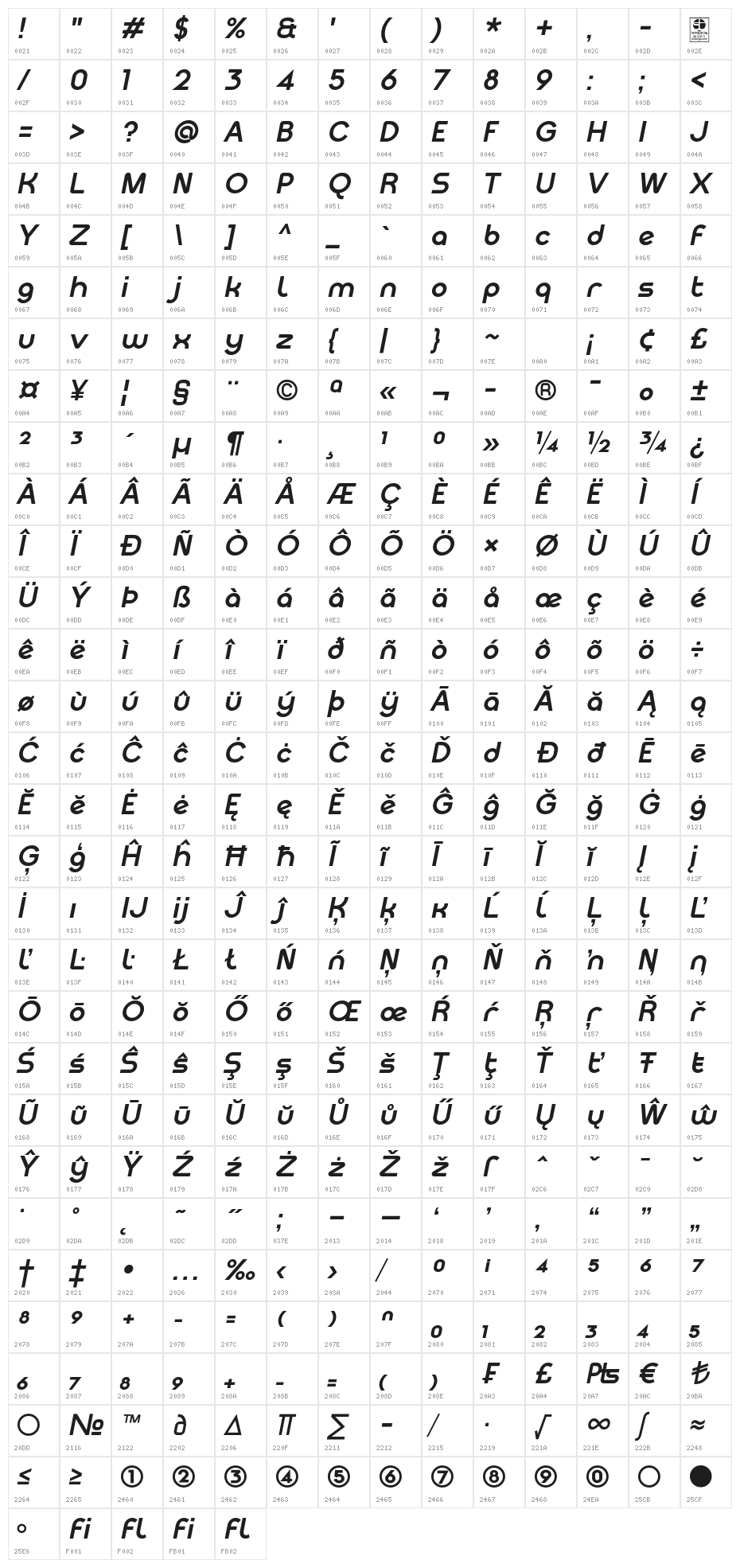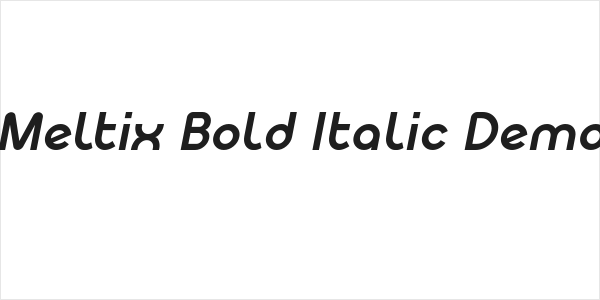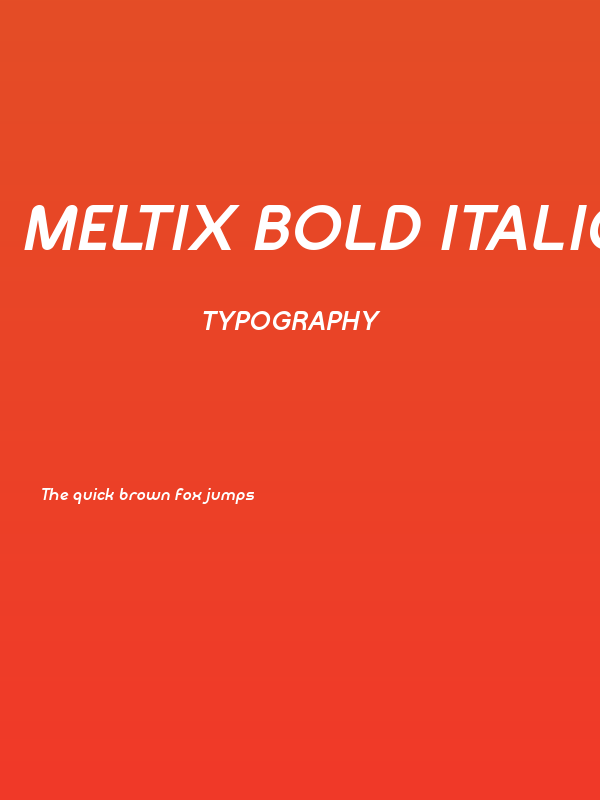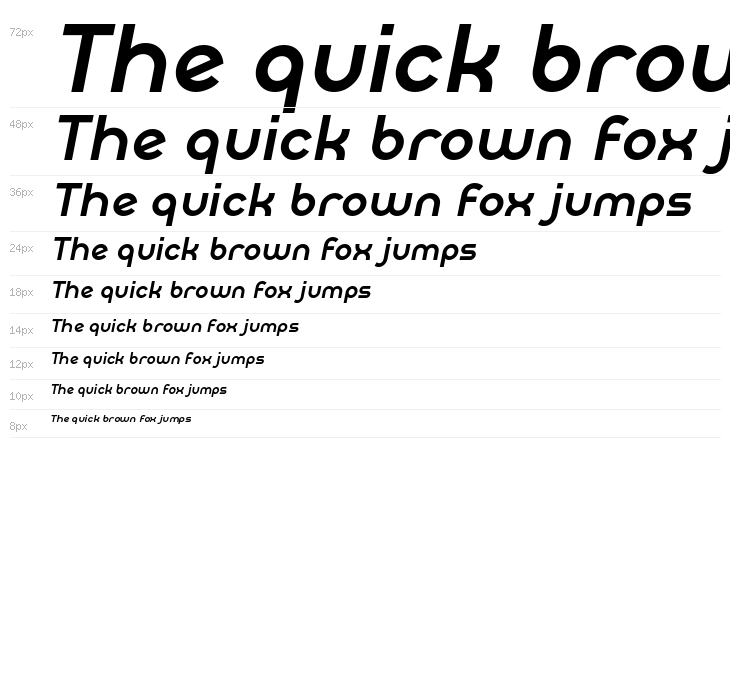
Meltix Bold Italic Demo Font
Meltix Bold Italic Demo Description
This font features a bold and italicized style, characterized by its smooth, flowing curves and slightly slanted orientation. The letters are well-defined with a modern aesthetic, offering a sleek and dynamic appearance. The uppercase and lowercase letters maintain a consistent style, with rounded edges and a uniform thickness that enhances readability. The numerals and special characters follow the same design principles, ensuring a cohesive look across all elements. This font is suitable for projects that require a contemporary and energetic vibe, making it ideal for branding, advertising, and digital media.
| Proposed Projects | Ideal for branding, advertising, digital media, and modern design projects. |